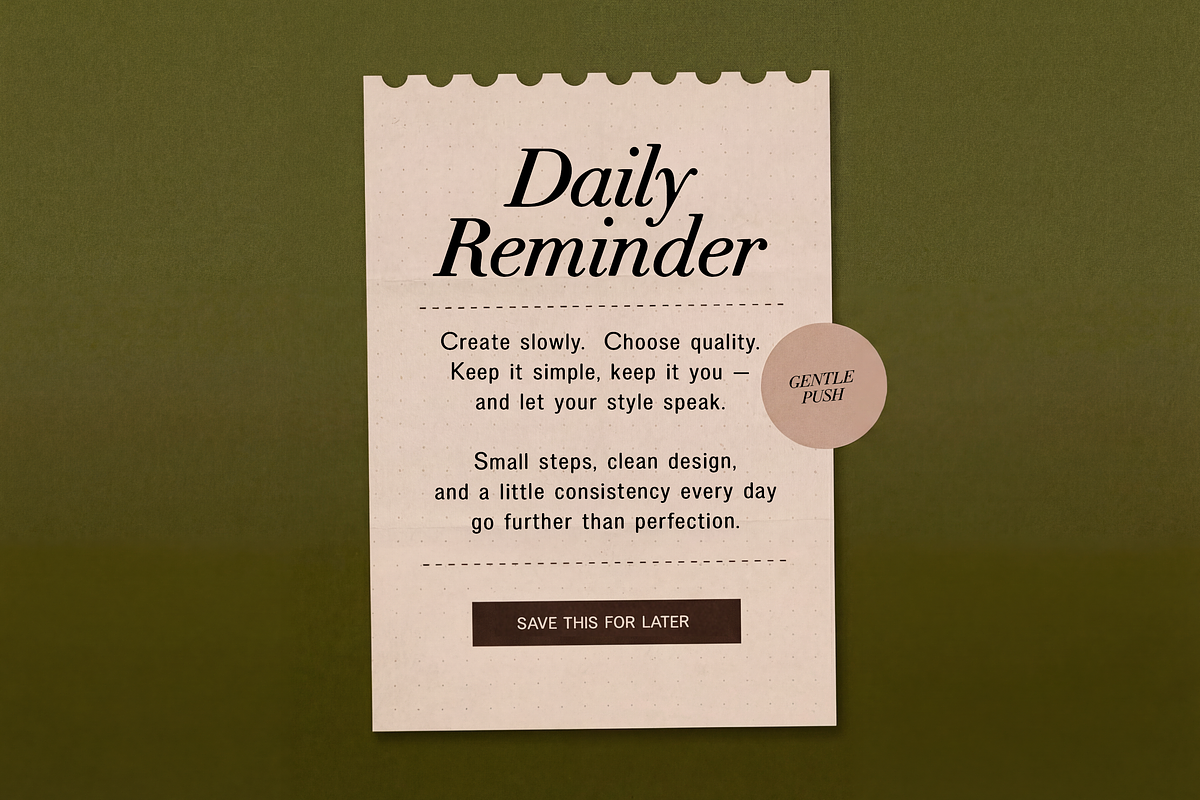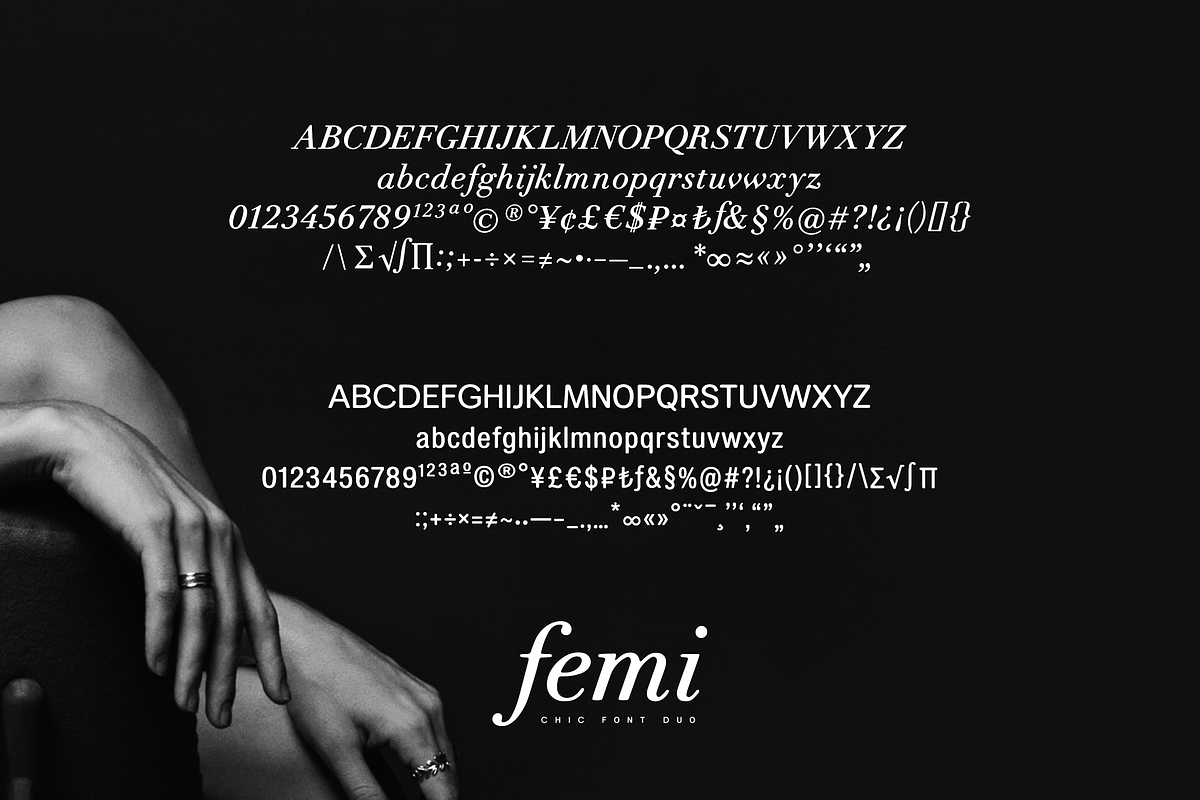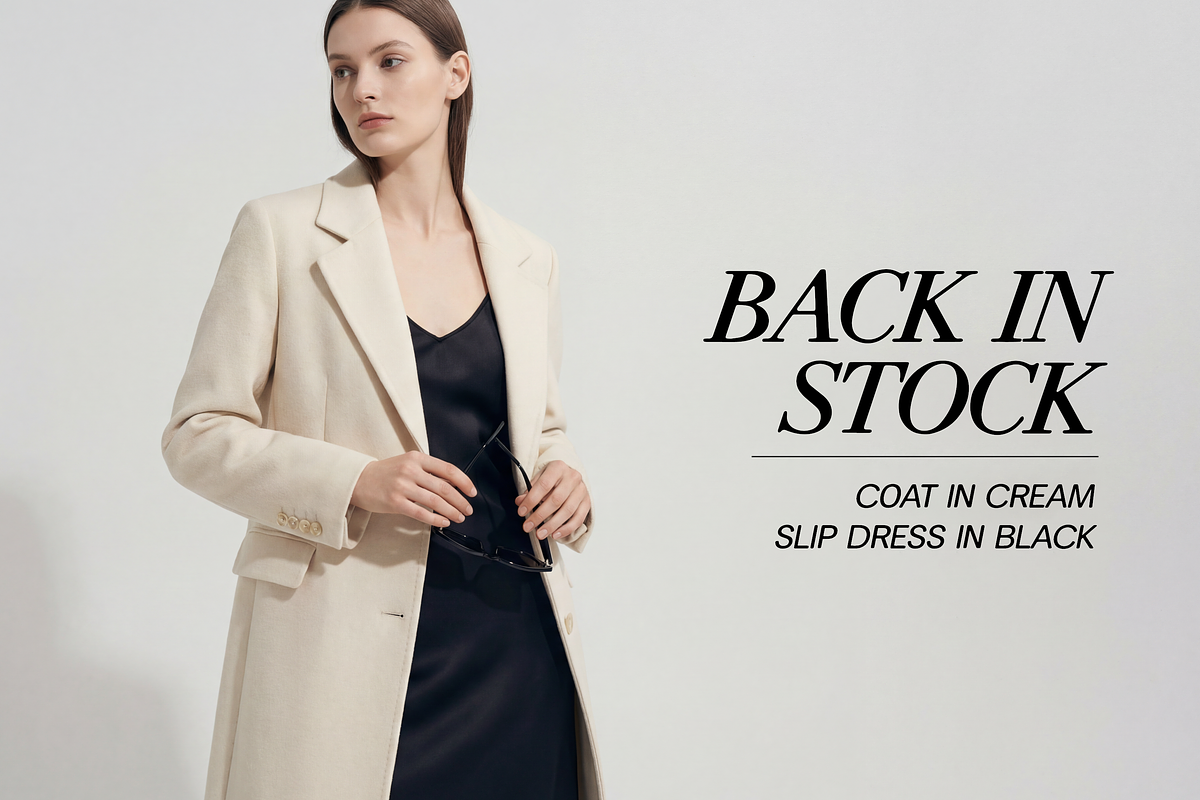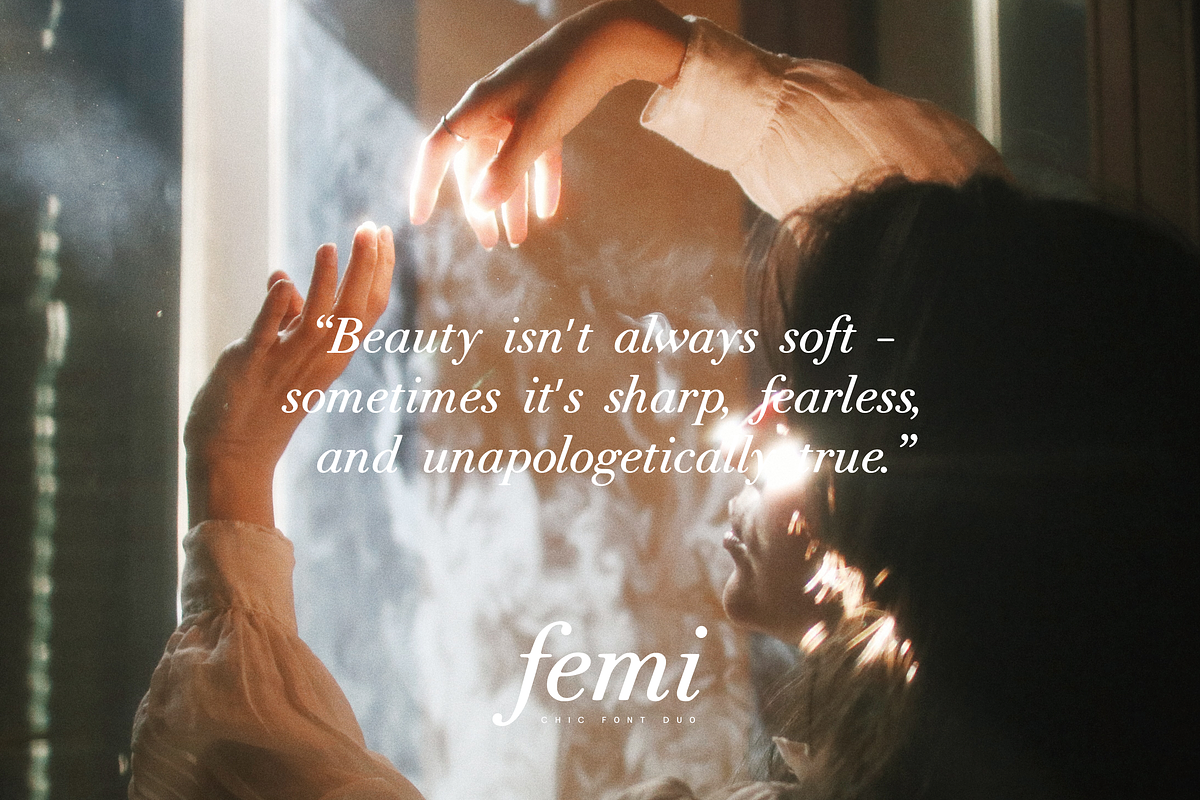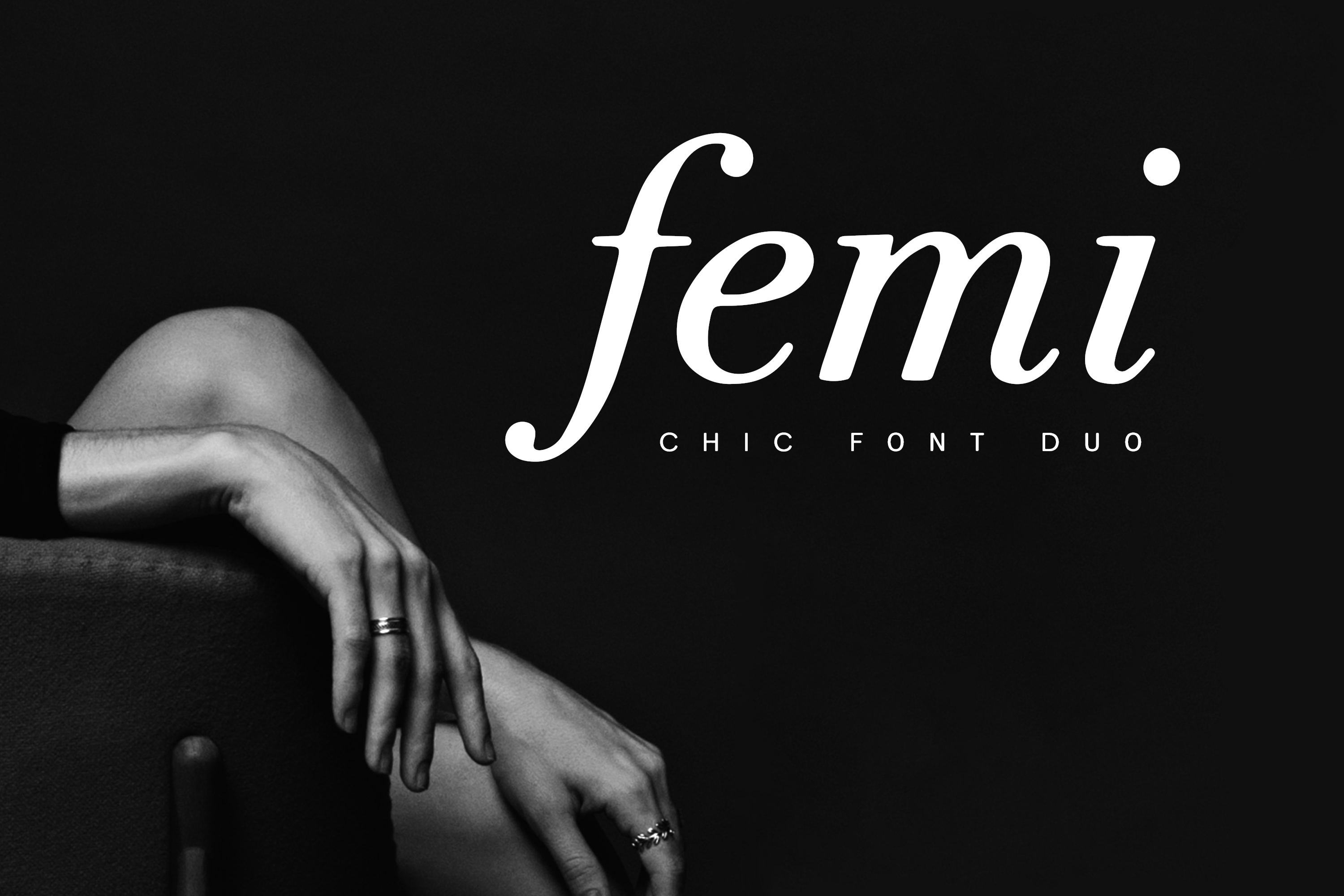
Femi Chic Font Duo
Femi Chic Font Duo — Elegant Italic Serif + Minimal Sans
Femi Chic Font Duo is a modern two-font set designed for chic branding, fashion visuals, and premium social content. The italic serif brings a refined, handmade elegance with graceful tails and a smooth slant — perfect for logos, titles, and headlines. The clean sans keeps everything balanced and minimal, making it ideal for captions, layouts, packaging, and website text.
- 2 fonts: Elegant Italic Serif + Minimal Sans
Perfect for branding, editorial design, social media, packaging, moodboards, and templates
Clean. Stylish. Timeless — with a soft, modern feel.